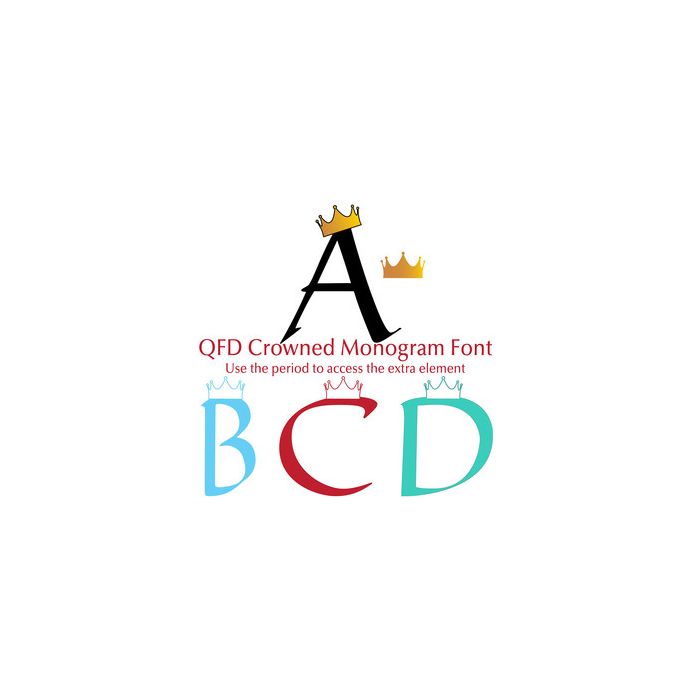
Everyone needs a crown! Combine this fun font with the other QFD Monogram fonts! See our detailed monograms tutorial by clicking the Instructions button.
To access the extra element, use the period.